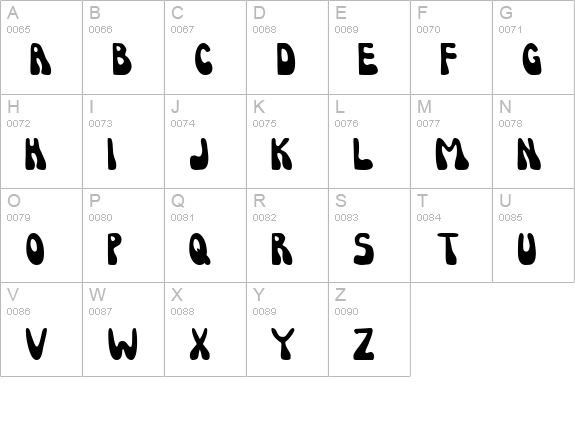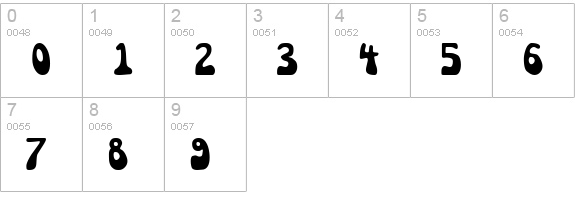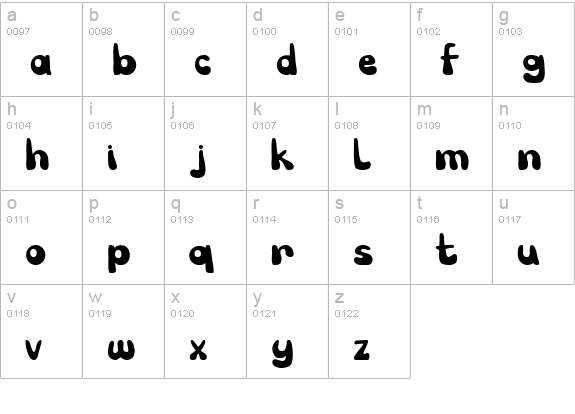
Syreeta font is a versatile and elegant typeface that exudes sophistication and charm. Its graceful curves and stylish letterforms make it perfect for a wide range of design projects, from branding to packaging to invitations. With a timeless appeal and a modern twist, Syreeta font is sure to make a lasting impression. What's even better is that Syreeta font is available for free download at FontsMarket.com. Now you can add this stunning typeface to your collection without breaking the bank. Don't miss out on the opportunity to enhance your designs with the beauty and versatility of Syreeta font. Download it today and let your creativity shine!